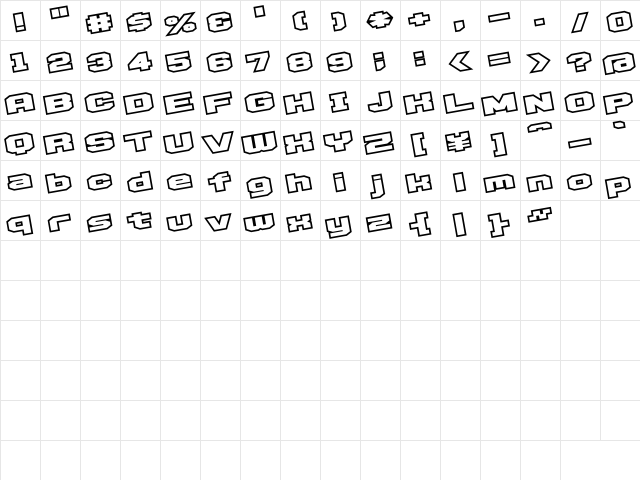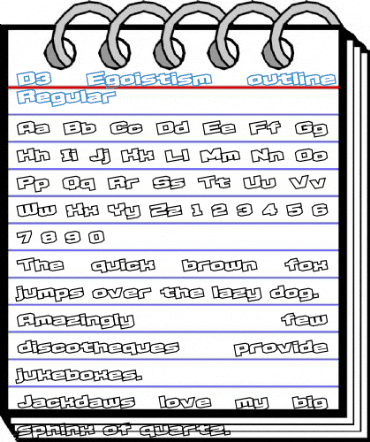
D3 Egoistism outline leaning Regular
Design Context for D3 Egoistism outline leaning
D3 Egoistism outline leaning is built around its visual character rather than neutral utility - its distinctive forms are designed to make an impression at display sizes.
Suited to editorial headers, event branding, and any context where the font itself is part of the message.
Font Pairing: Pair with a clean neutral sans-serif for body copy to let D3 Egoistism outline leaning's character lead without overwhelming the composition.
Pro Tip: Use D3 Egoistism outline leaning exclusively at display sizes - it was designed to be seen, not read at length. Let a neutral companion handle body copy.